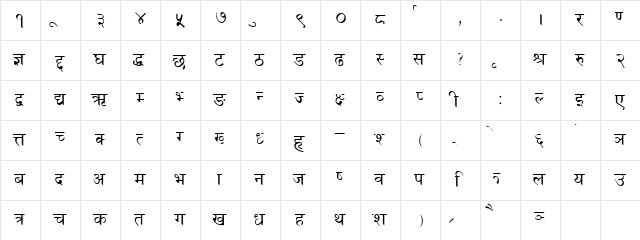
Spins Regular
Design Context for Spins Typeface
Spins takes a measured approach to typography — its balanced proportions and neutral character make it a reliable workhorse for both digital and print work.